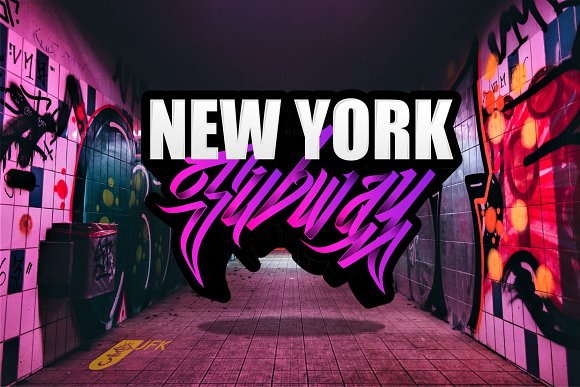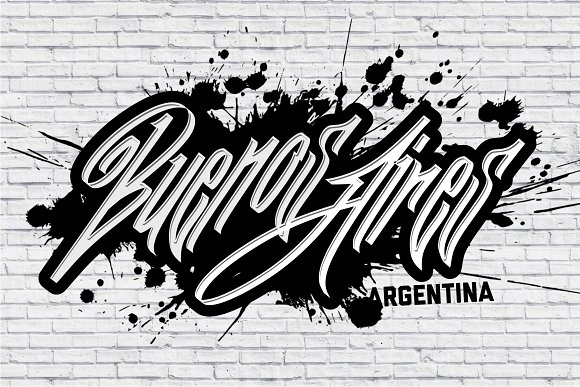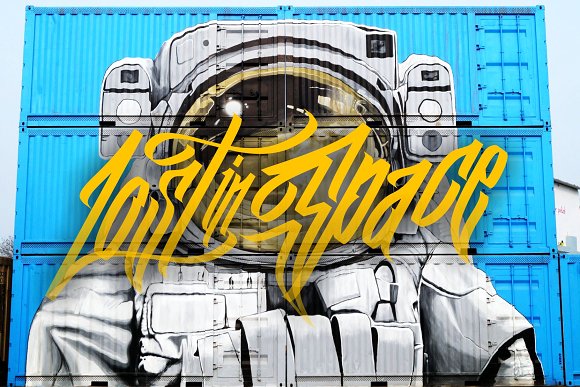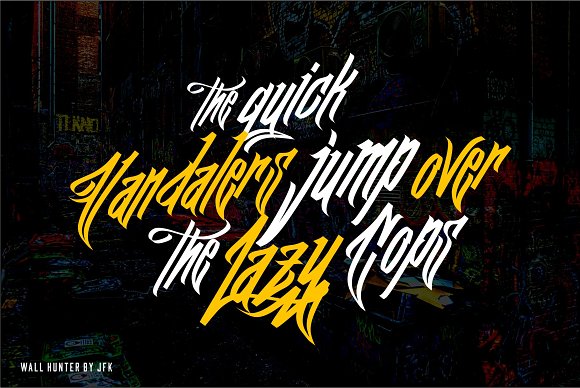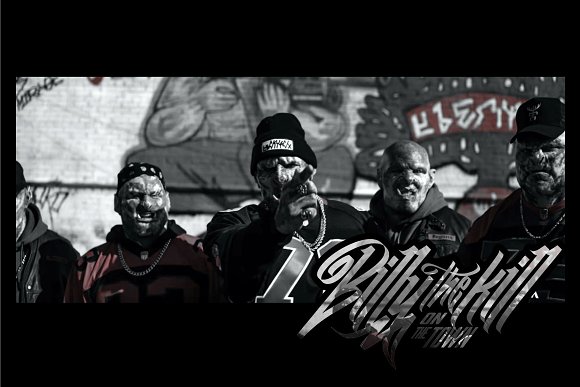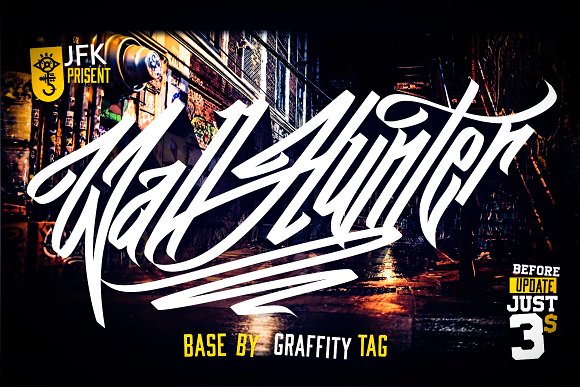
Wall Hunter (Graffiti Tag Fonts)
Wall Hunter is an graffiti tag font, using digital marker in wild style of hip hop culture. dedicate and inspirated by street art artist. this font on development (alphabet in uppercase & lowercase only), get now only 3$ before clearly update.